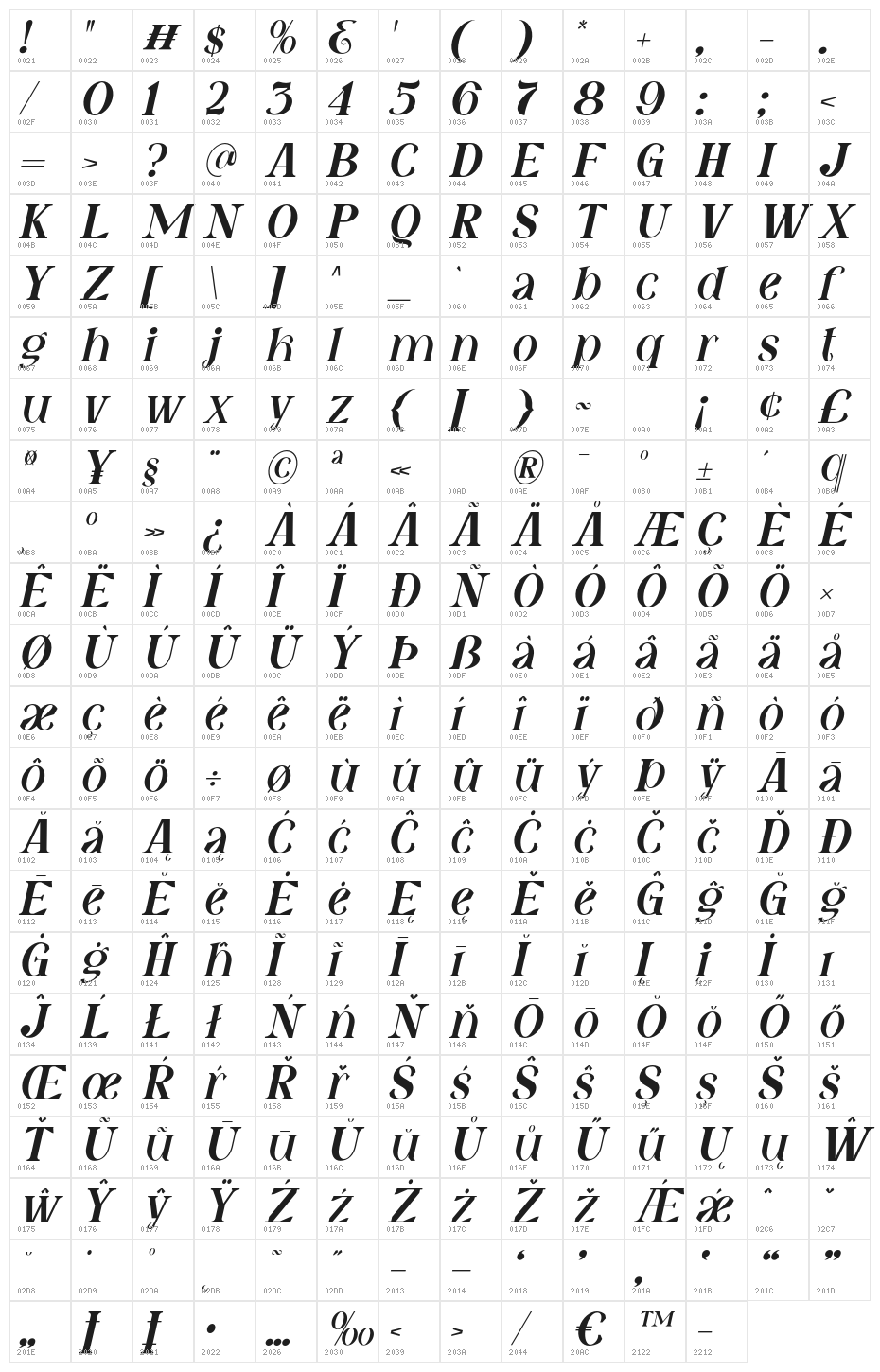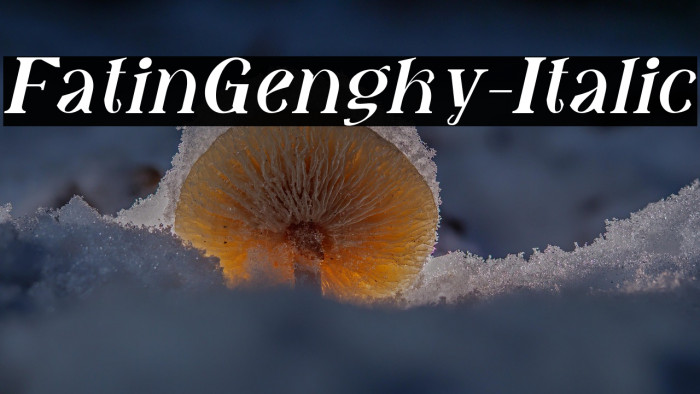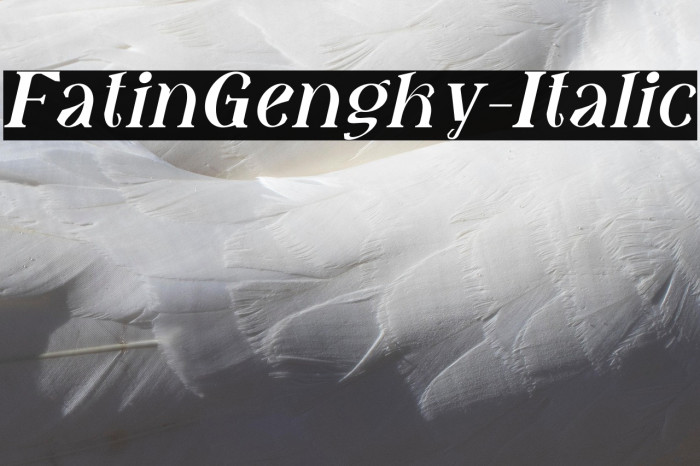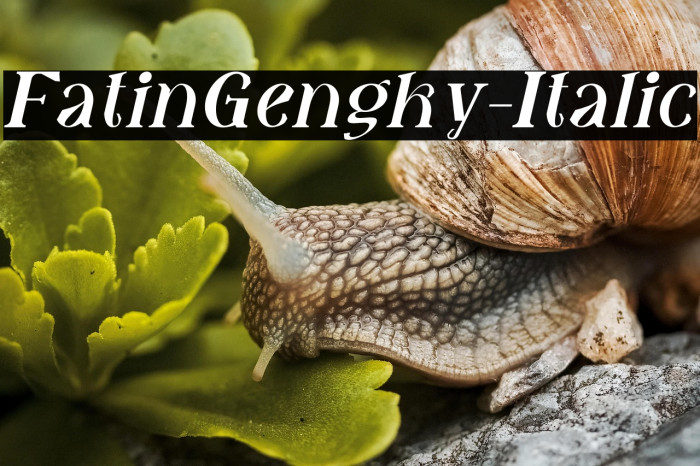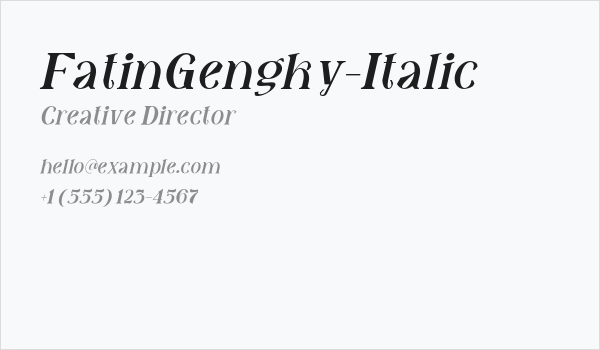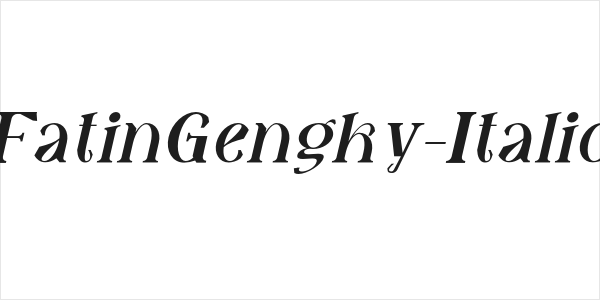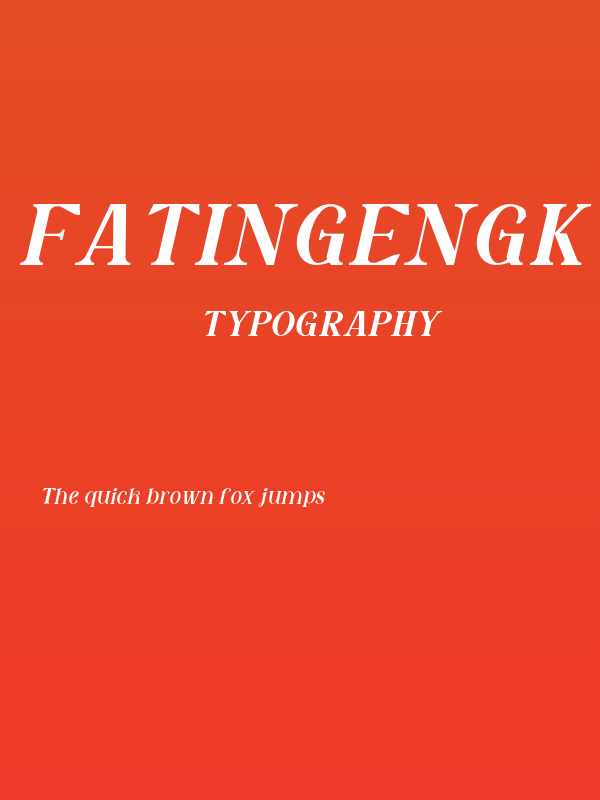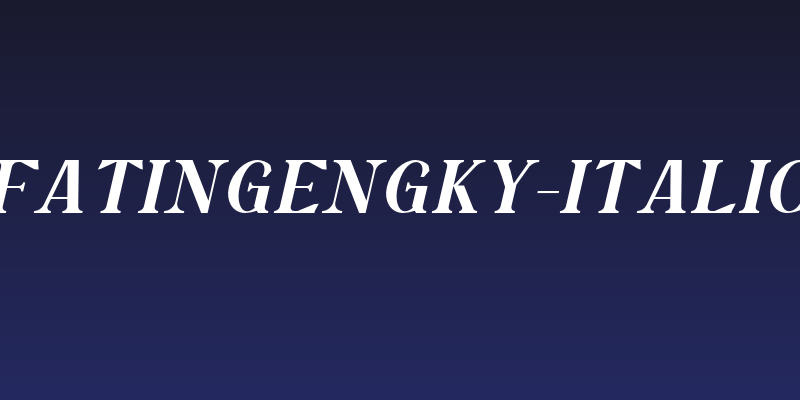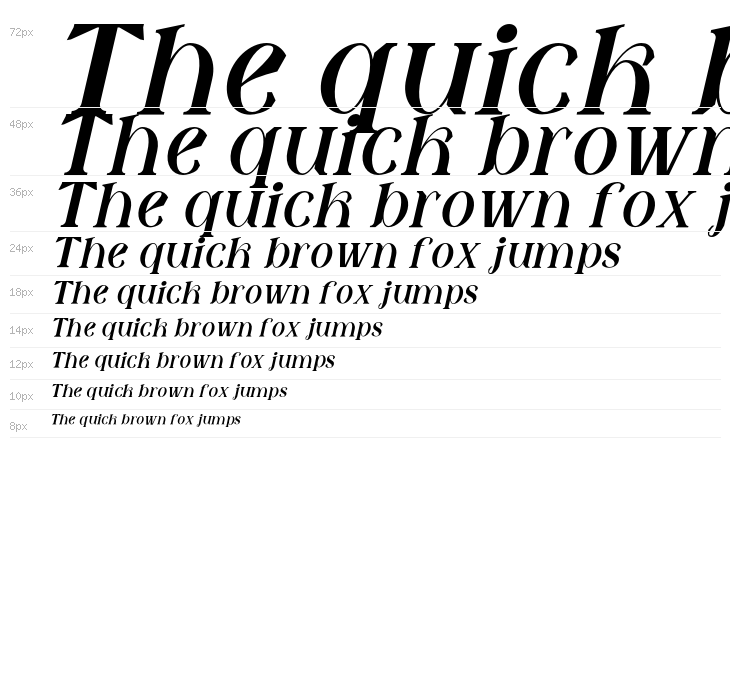
FatinGengky-Italic Font
FatinGengky-Italic Description
This elegant typeface features a classic italic style with a refined and sophisticated appearance. The letters are slightly slanted, giving a sense of motion and fluidity. The strokes are moderately thick with a medium contrast, enhancing readability while maintaining a stylish look. The serifs are pronounced, adding a touch of tradition and formality. The overall design is balanced, with consistent character spacing that ensures clarity and legibility. This font exudes a timeless charm, making it suitable for a variety of formal and creative applications.
| Proposed Projects | Ideal for wedding invitations, formal documents, branding, and editorial design. |